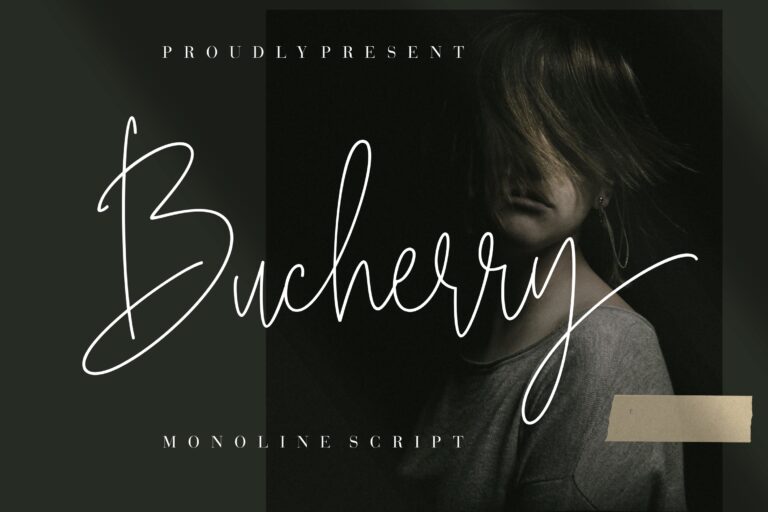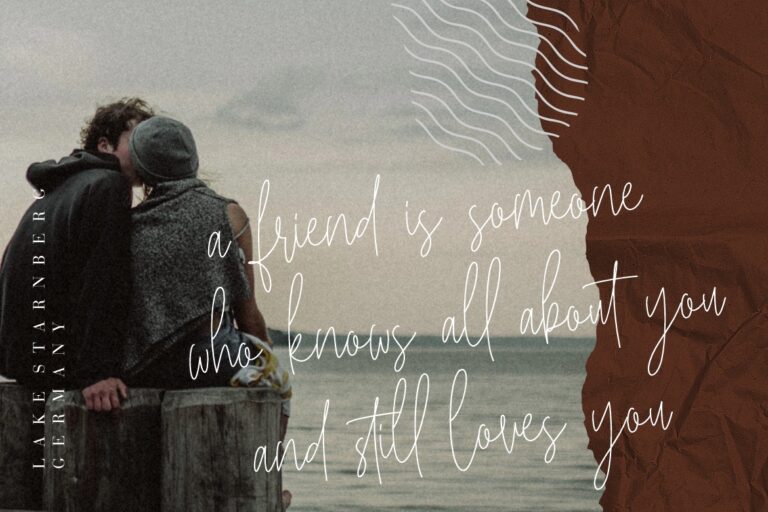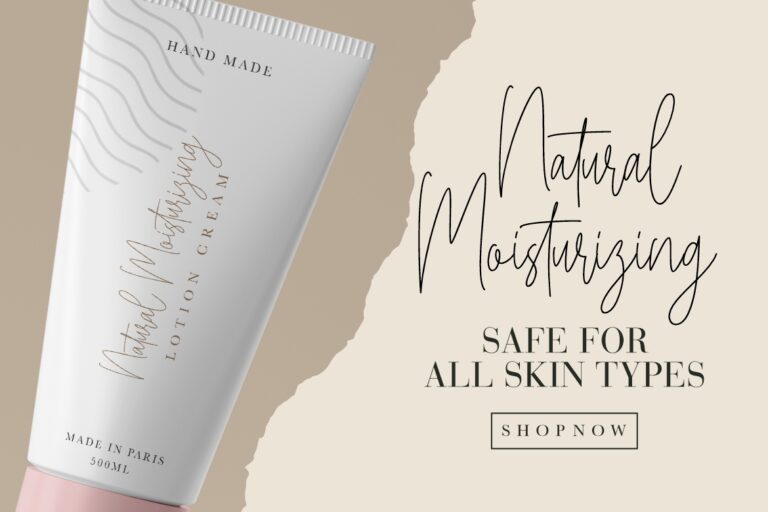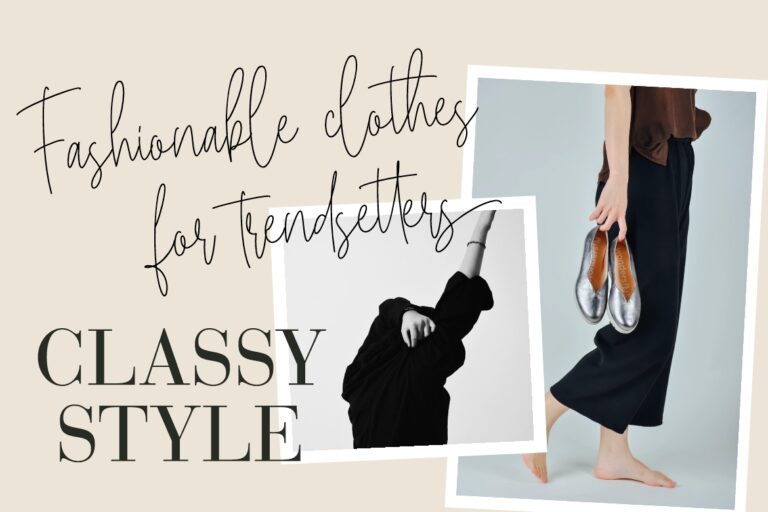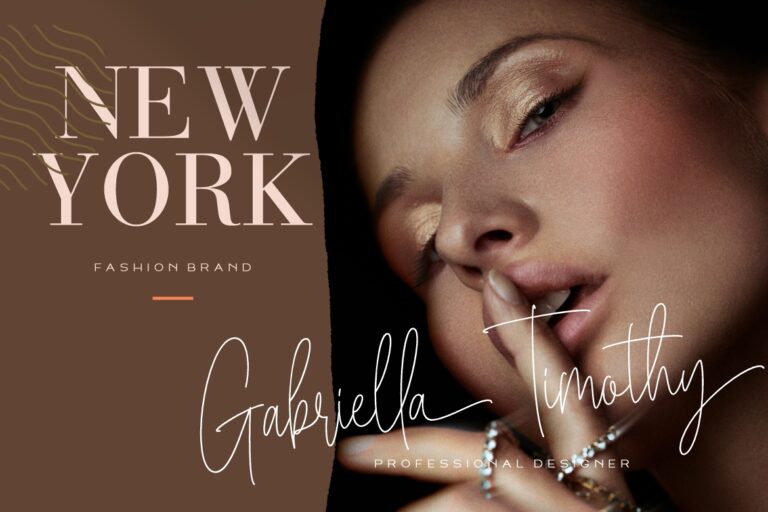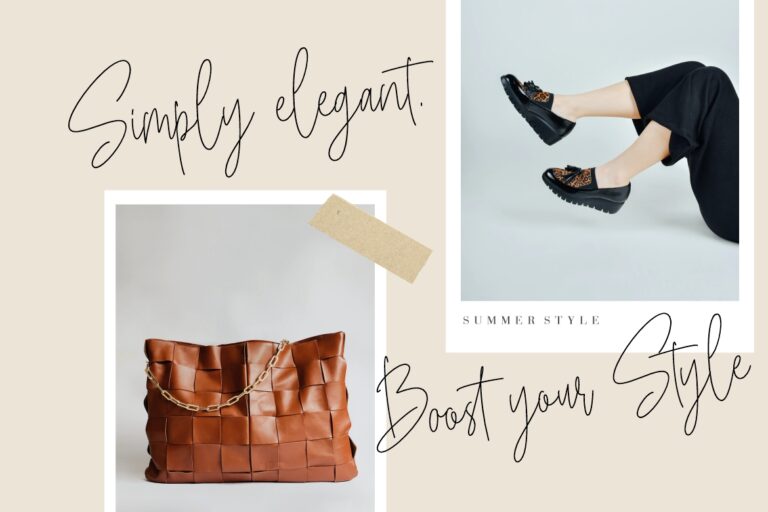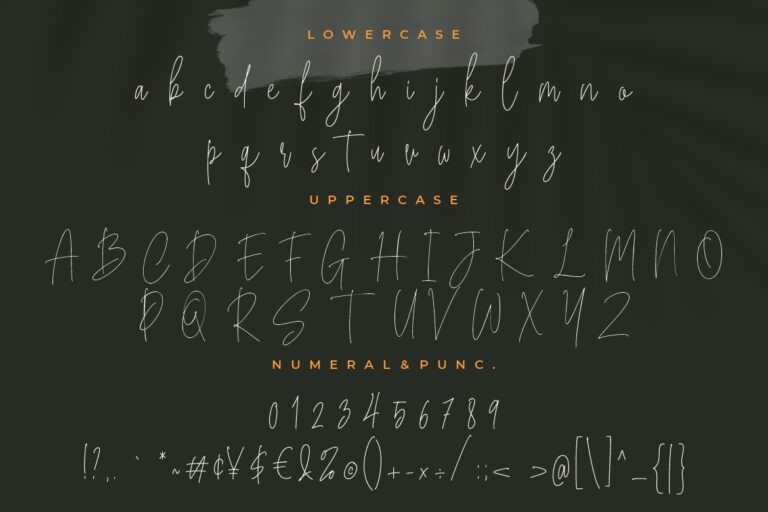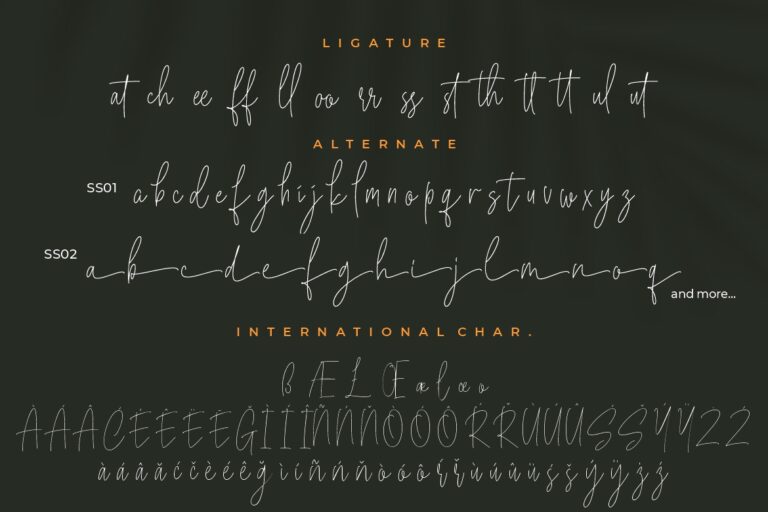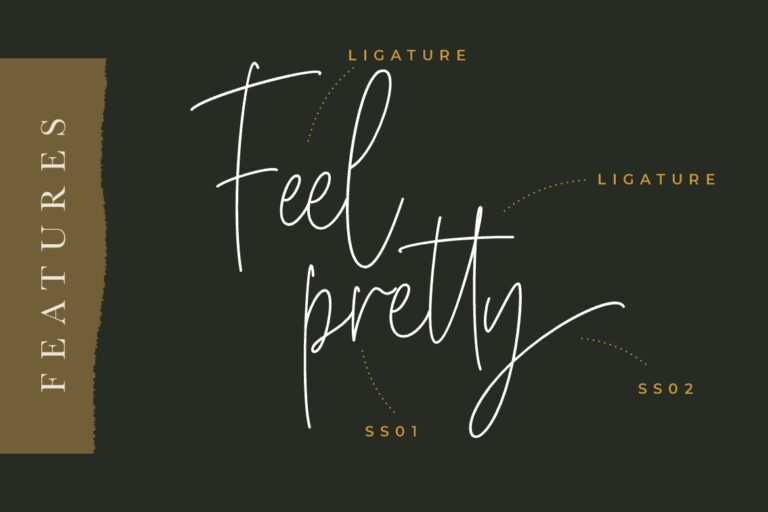
Bucherry a font with stylish monoline script and very suitable for your beautiful projects.
Bucherry is perfect for branding projects, logo, wedding designs, social media posts, advertisements, product packaging, product designs, label, photography, watermark, invitation, stationery and any projects that need handwriting taste.
Bucherry Monoline Script